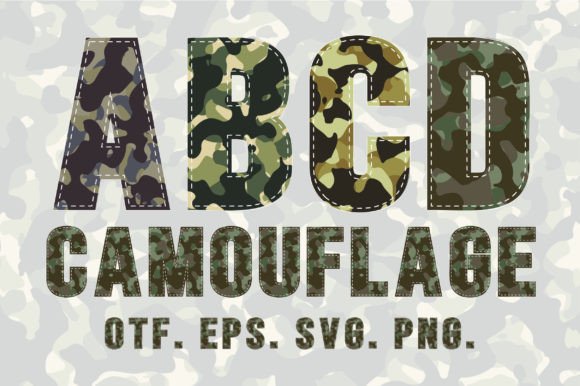
Introducing Camouflage Font, the best font for creative websites! Created by NN-Font Design, this captivating color font is a game-changer for designers looking to make a bold statement. With its four distinctive patterns inspired by military camouflage designs, Camouflage Font brings a touch of rugged elegance to any typography project.
What sets Camouflage Font apart is its unique blend of earthy tones and intricate textures. Each pattern within this font family showcases a mesmerizing combination of colors, creating a visually stunning effect that is sure to captivate your audience. Whether you're designing a logo, poster, or website, Camouflage Font will instantly elevate your work to another level.
Versatility is another key feature of Camouflage Font. It seamlessly adapts to various design styles and themes, making it a perfect choice for creative minds looking to add a touch of originality. From vintage-inspired designs to modern and edgy projects, this font will effortlessly blend in and enhance the overall visual appeal.
But it's not just about aesthetics. Camouflage Font is strategically crafted to evoke emotions and create a lasting impact. Its bold and distinct appearance leaves a powerful impression, conveying strength, resilience, and a sense of adventure. It is the ideal choice for brands and businesses wanting to stand out from the crowd and leave a lasting impression on their audience.
With Camouflage Font, your designs will never go unnoticed. This font has been meticulously designed to ensure every letter, every word, and every sentence grabs attention and makes a statement. Its eye-catching nature will draw users in, enticing them to explore further and discover the compelling message behind your design.
In conclusion, Camouflage Font is more than just a font. It's an experience. It's the perfect blend of captivating colors, intricate textures, and emotional impact. Download Camouflage Font today and let your creativity soar to new heights. Stand out, make an impression, and create designs that leave a lasting mark.